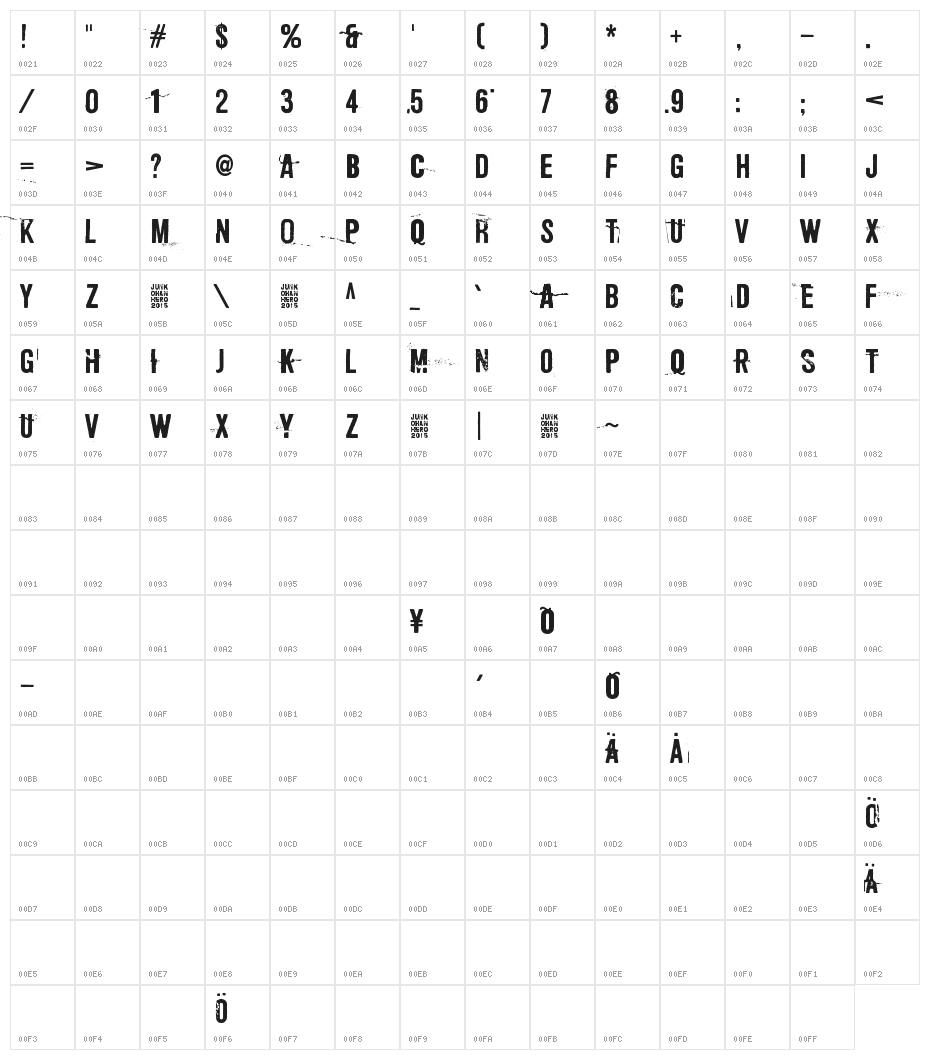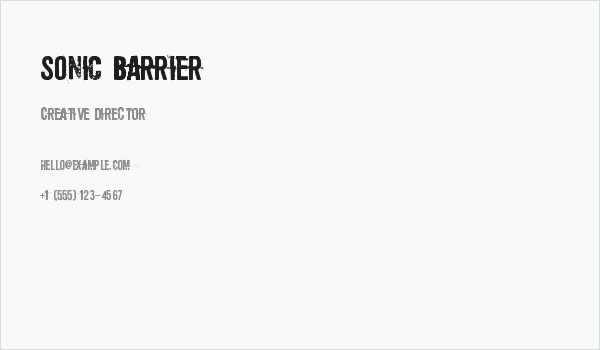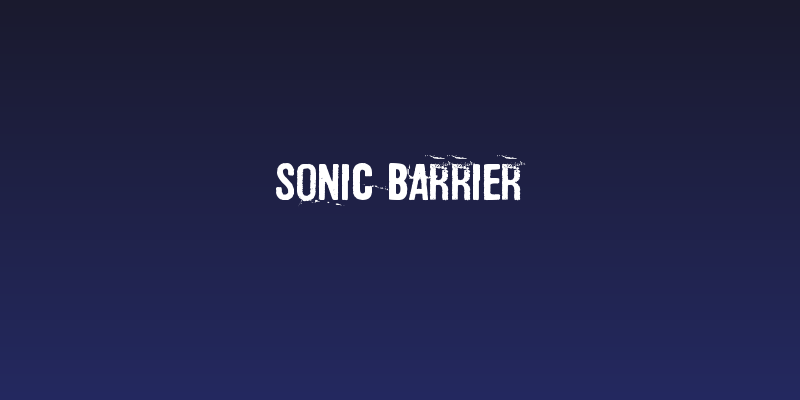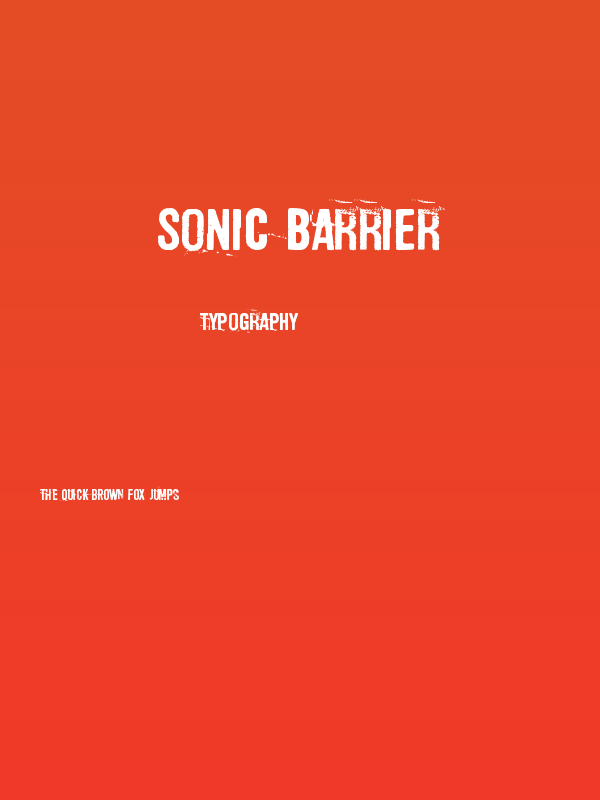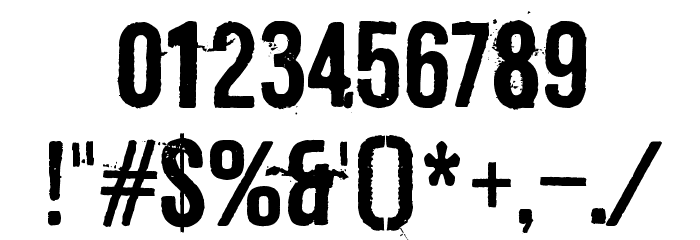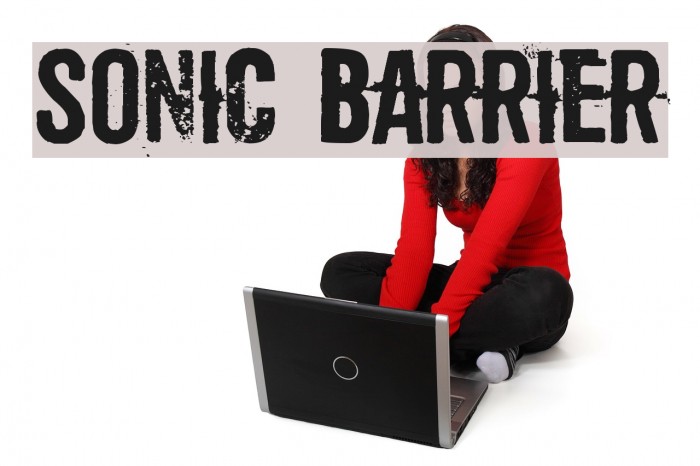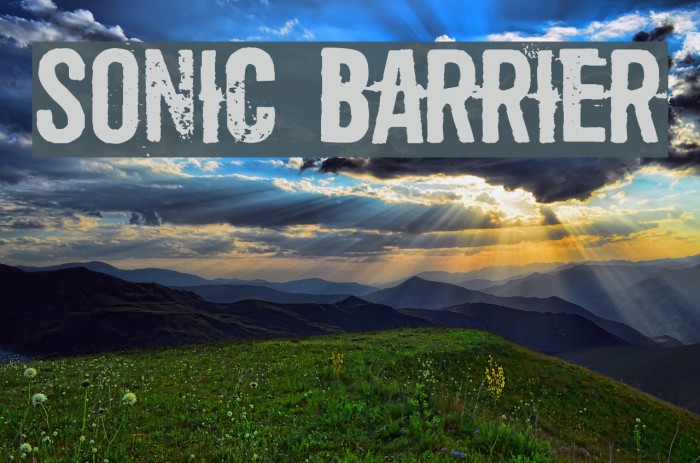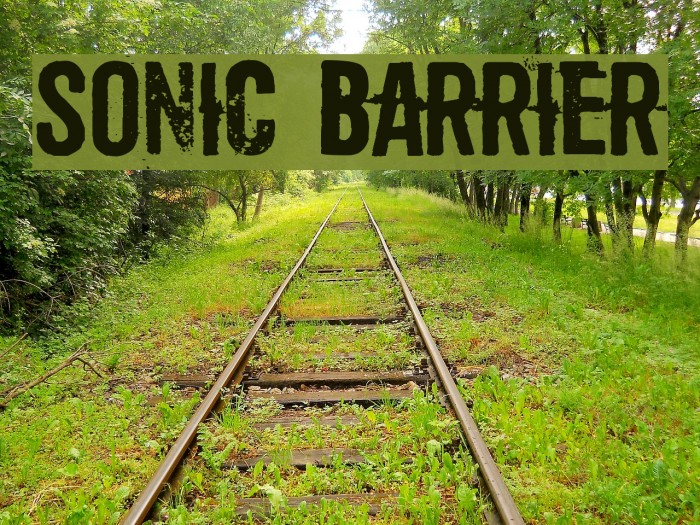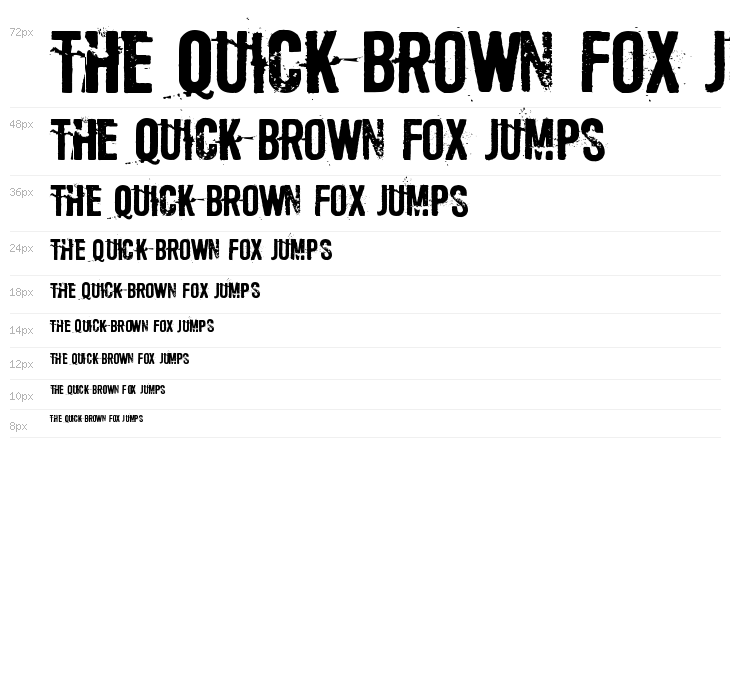
Sonic Barrier Font
Sonic Barrier Description
This font features a bold and distressed style, reminiscent of grunge or industrial aesthetics. The characters are uppercase and exhibit a rough, textured appearance, suggesting a worn or weathered look. The edges are uneven, adding to the rugged feel, while the overall structure of the letters remains clear and legible. This font is ideal for projects that require a strong, impactful visual presence with an edgy or rebellious tone.
| Overall Style | Grunge, Industrial |
| Proposed Projects | Ideal for music album covers, posters, streetwear branding, and any design needing a gritty, urban edge. |